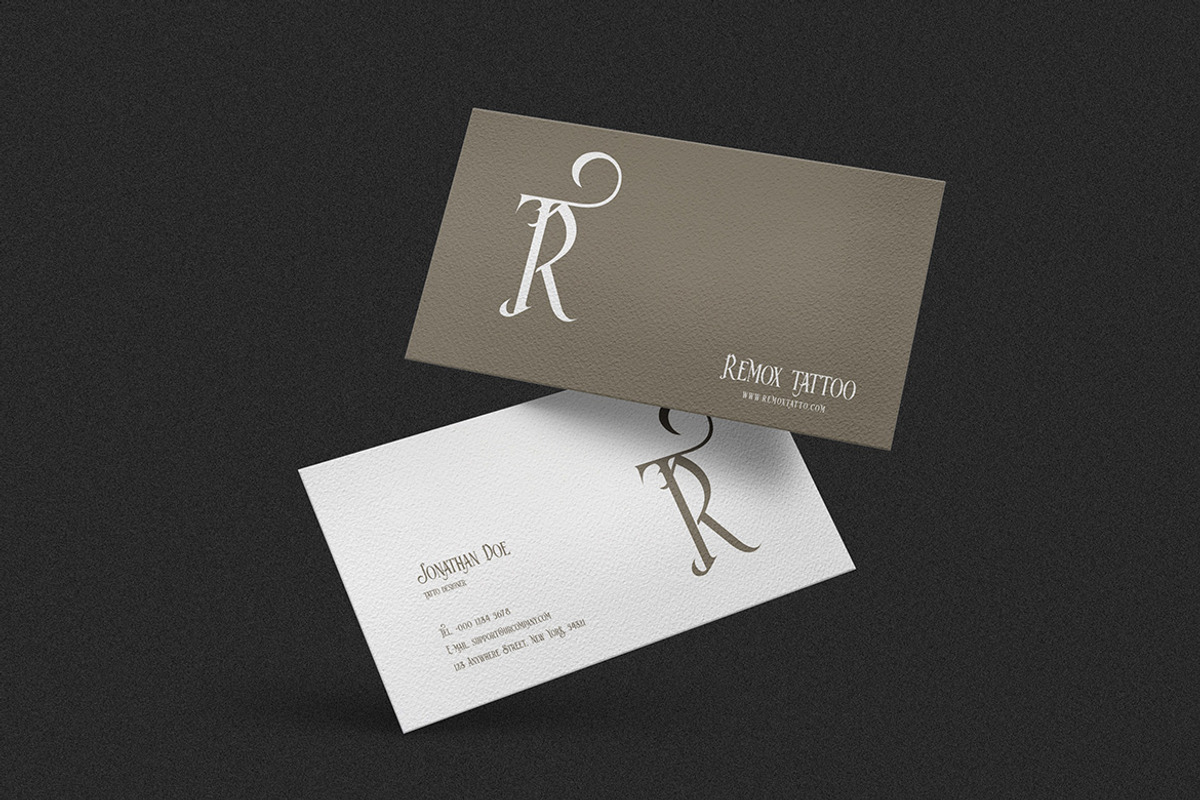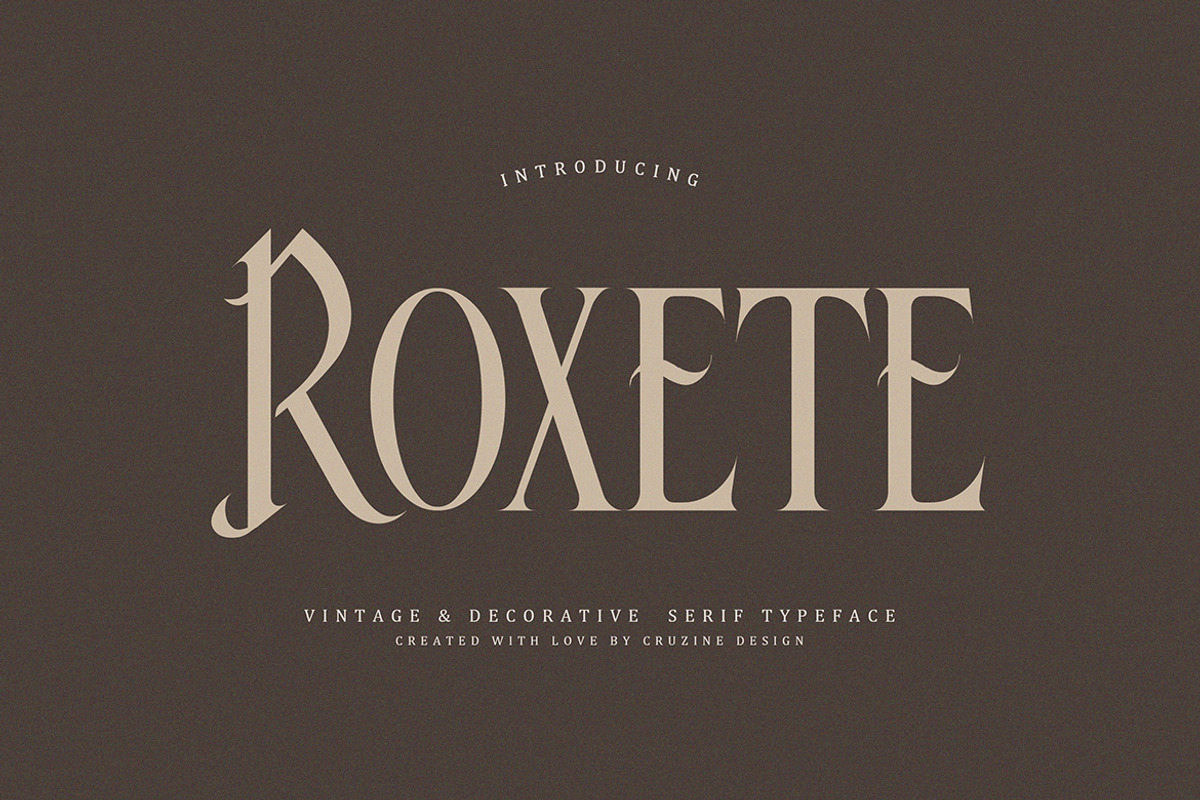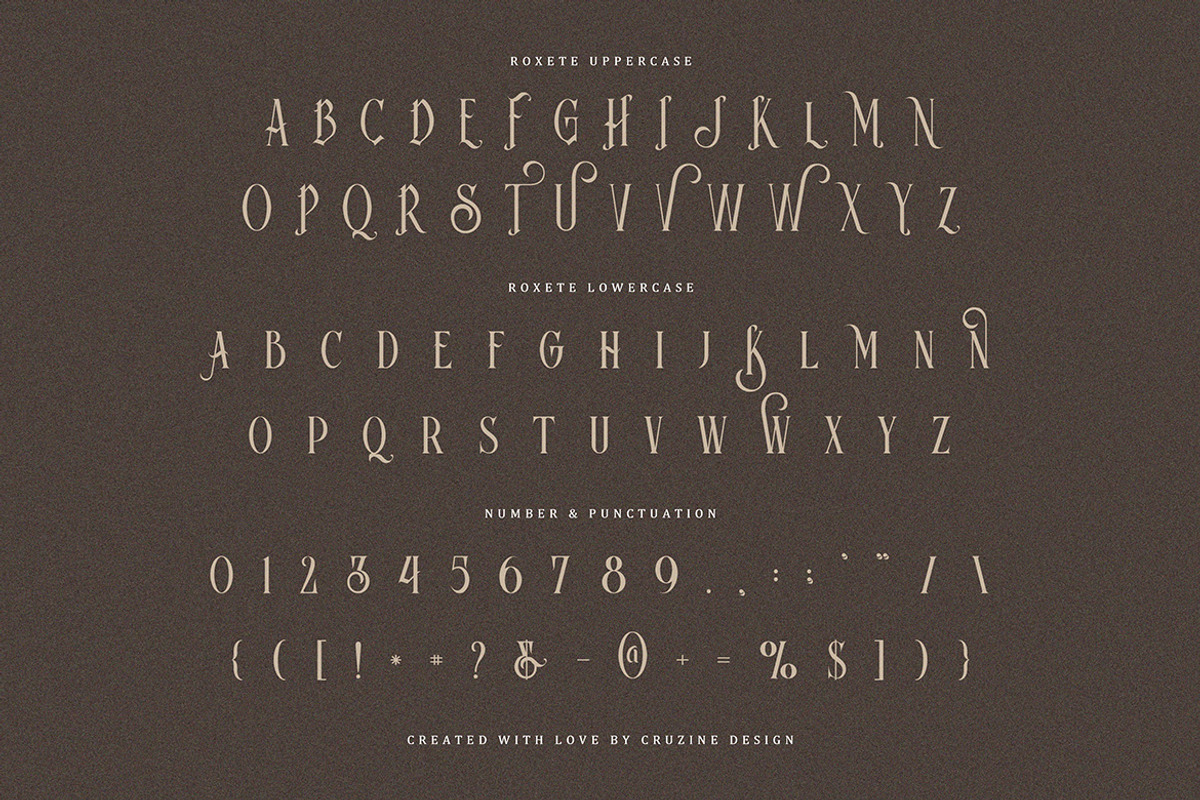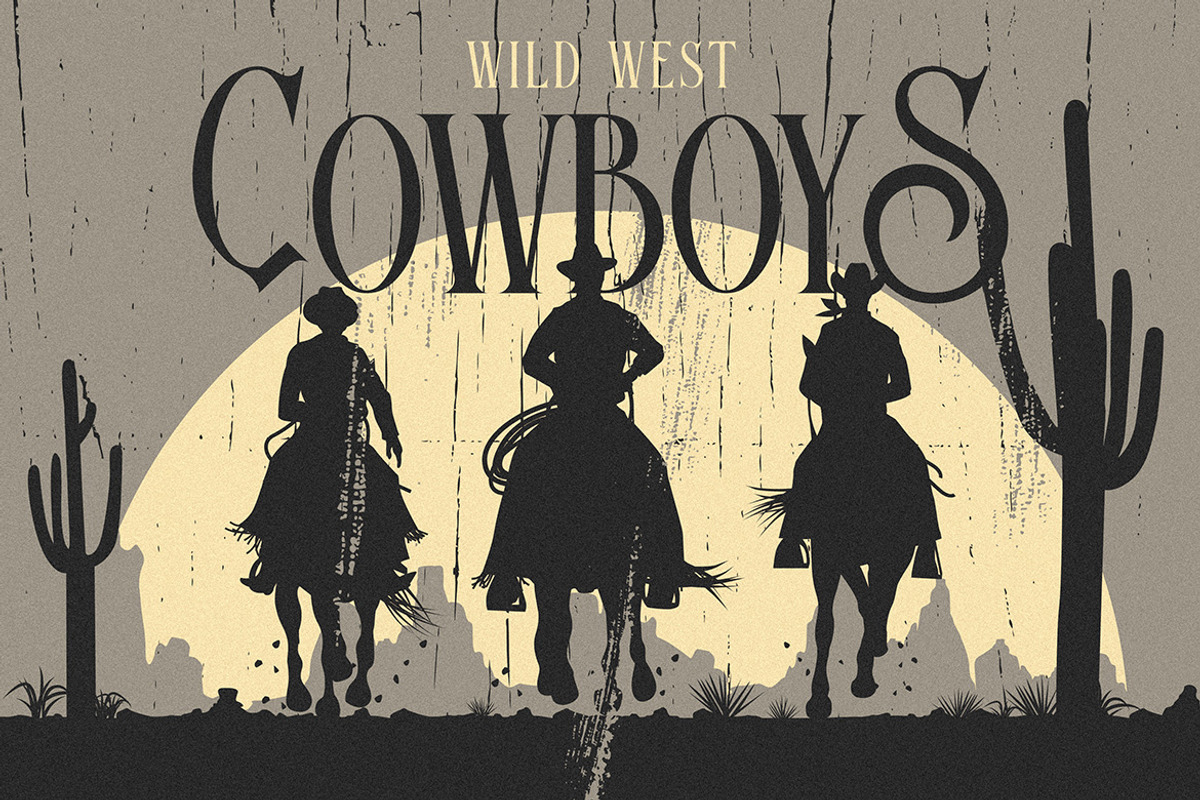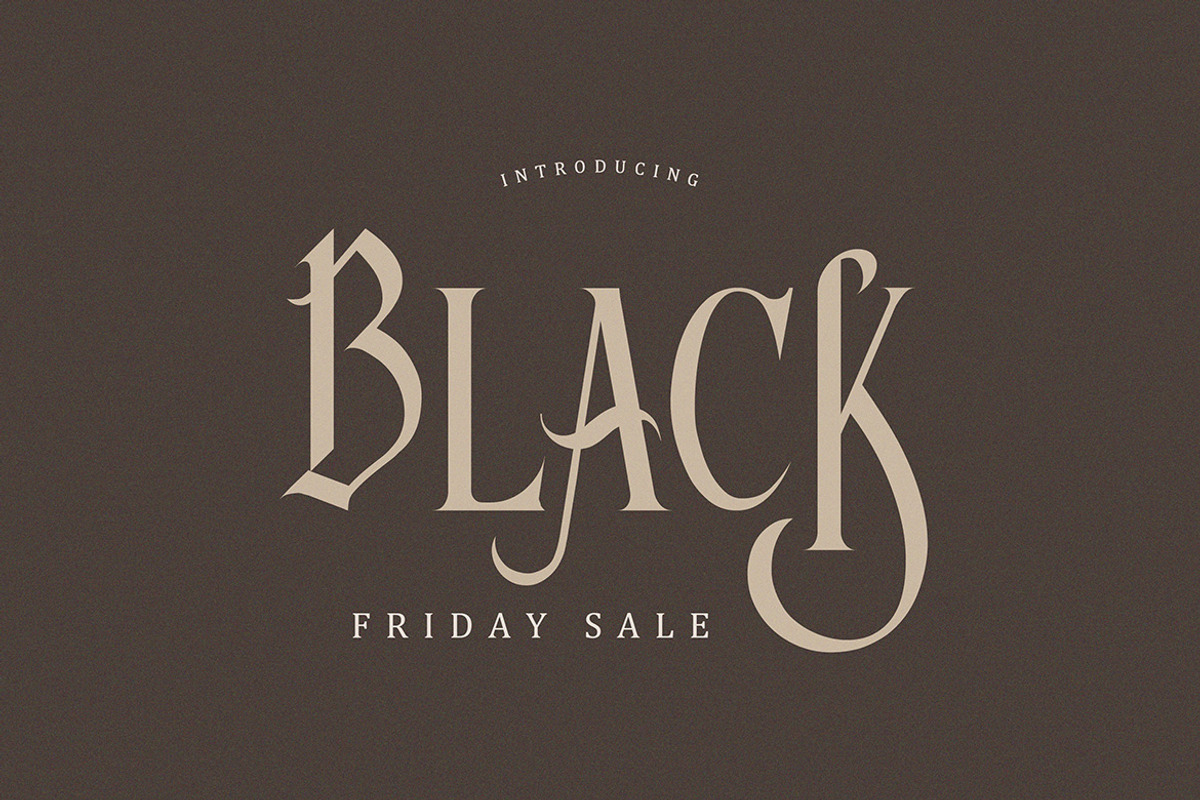
Roxete Vintage Serif Font
Vintage, decorative, retro & classy serif font. Great for your new logo or branding project.
- Great for retro or vintage style branding projects